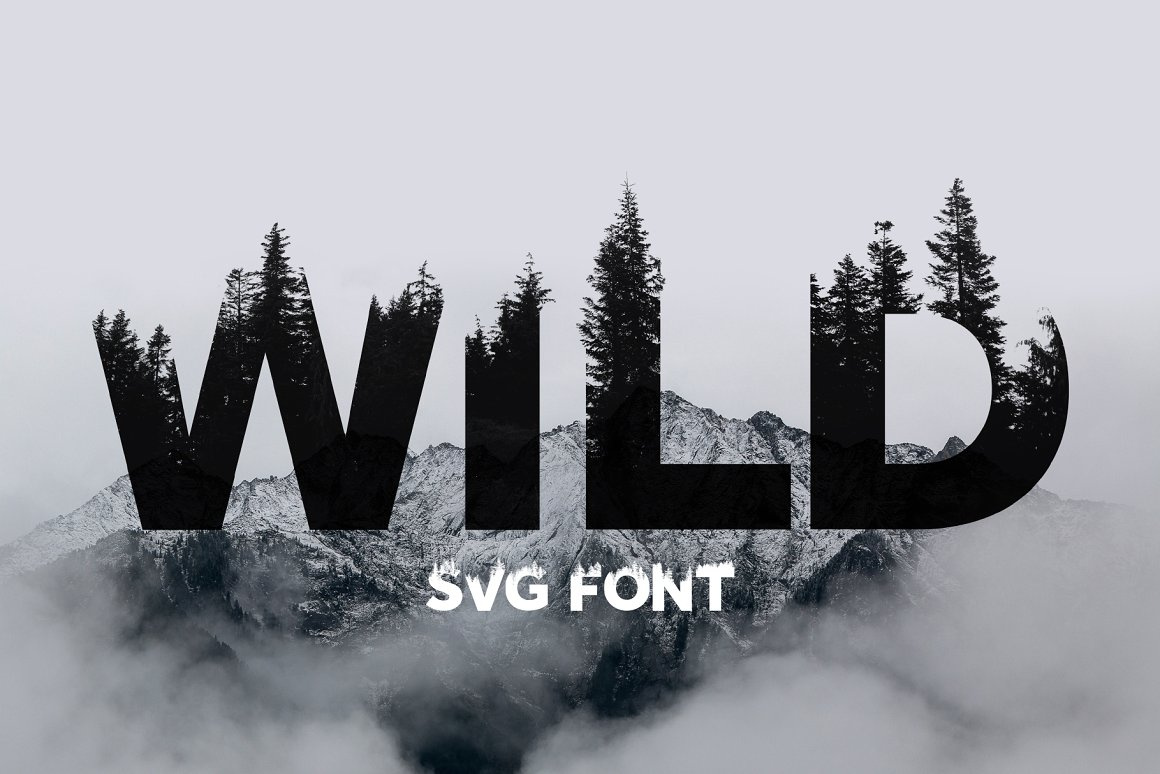
Wild Wilderness Woodland Font
Wild is a beautiful wilderness woodland inspired OTF font.
Made from real images of Canadian tree tops which means there is lots of great detail that would not be possible with a traditional font. Its perfect for adventure and travel themed projects where you need a real sense of the great outdoors. Use it as a bold headline on posters and invites, or on rugged outdoor exploration social media posts the options are endless.